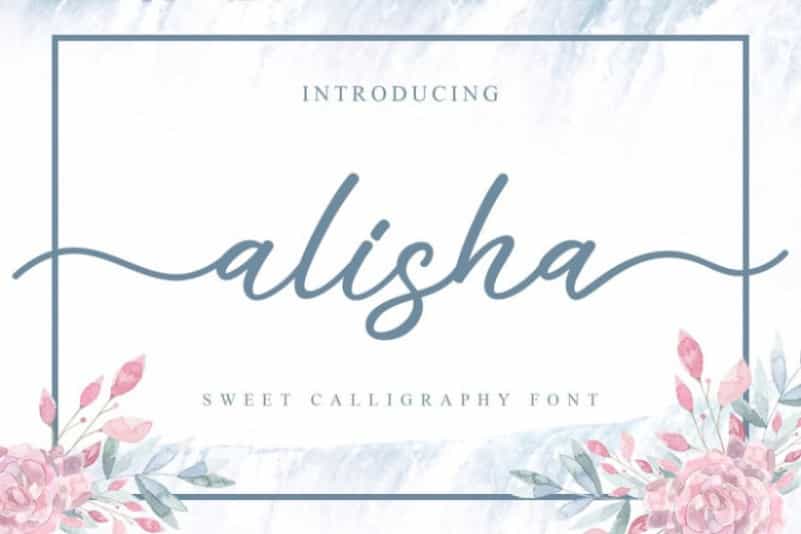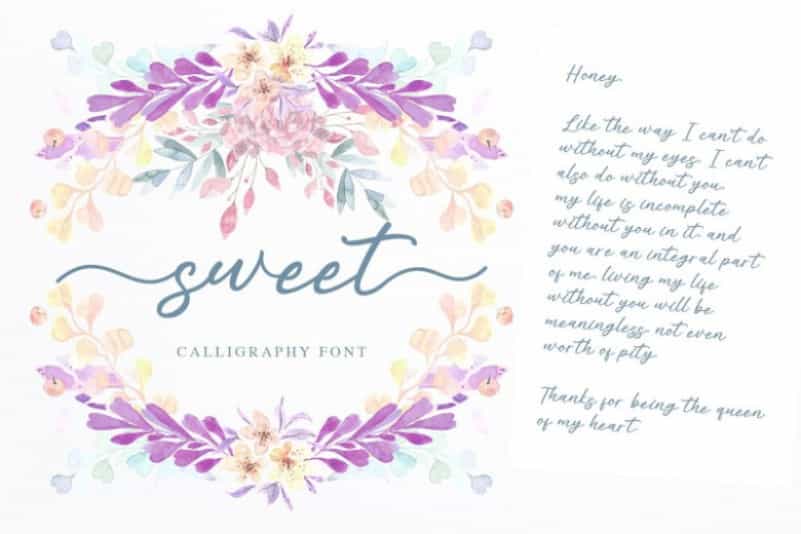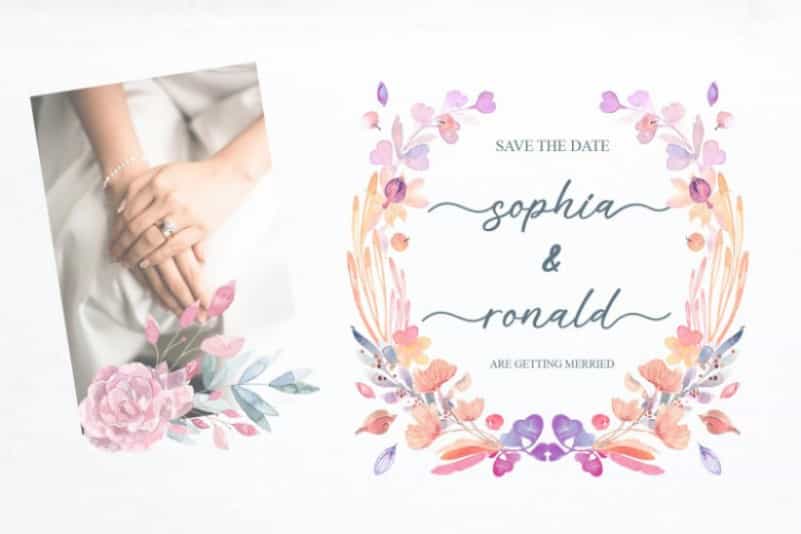
Introducing Alisha Font. Alisha – Sweet Calligraphy Font is a handwritten script font with an easy and sweet style, this font is perfect for your next creative projects like watermark on photography, quotes, album cover, logo, business card and many other design project.